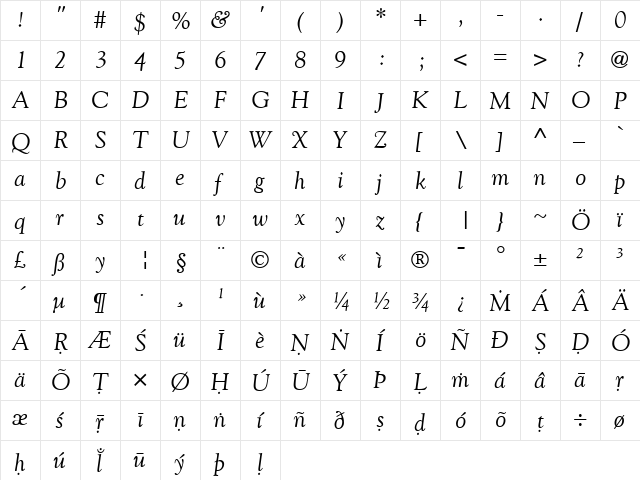
ScaGoudy Italic
Design Context for ScaGoudy Typeface
ScaGoudy offers clean, dependable letterforms without strong stylistic allegiance, making it a practical choice for designers who need flexibility. The slanted form adds forward momentum and visual energy.